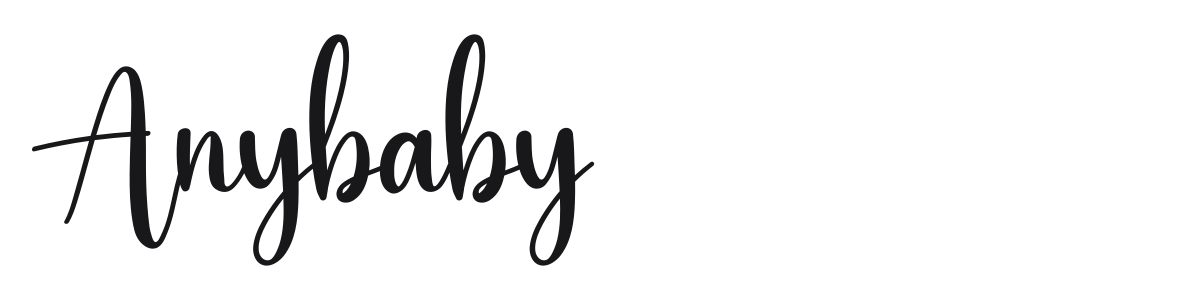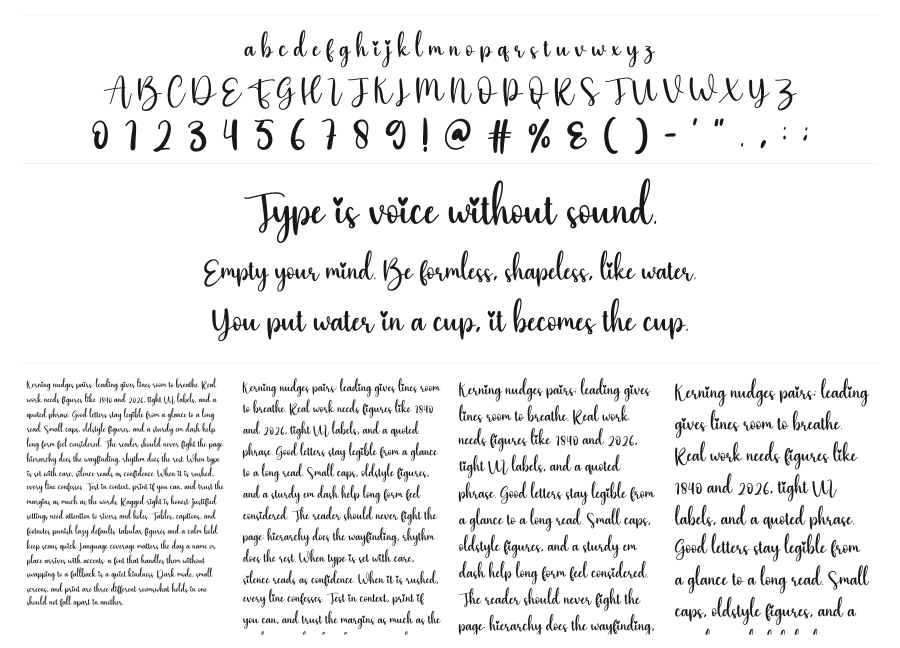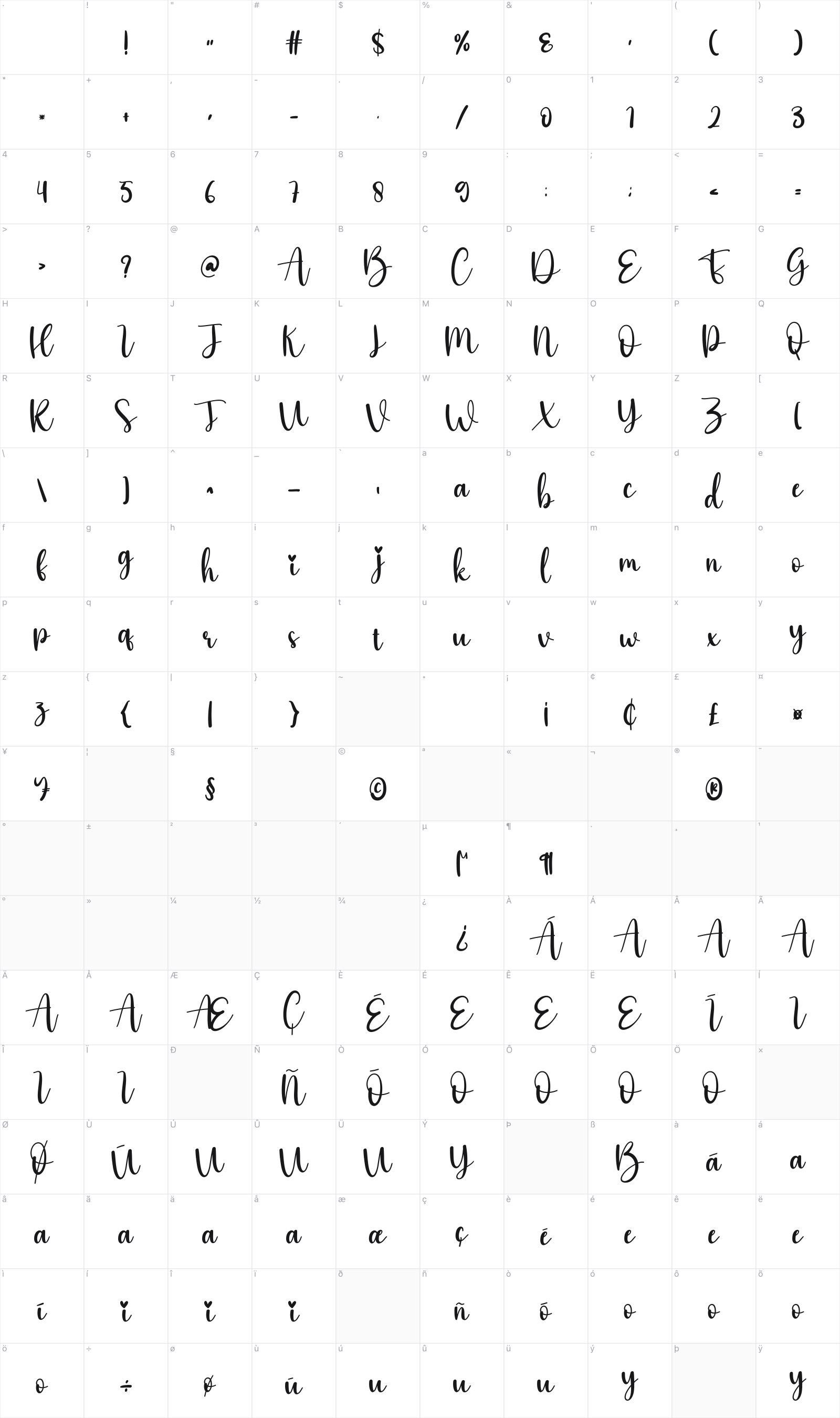
Anybaby
Anybaby is a bouncy connected casual script with flowing strokes and a lively baseline rhythm. Small decorative touches like a heart-dotted letter give it a sweet, personal feel that resonates with wedding and lifestyle aesthetics. It reads warmly at large sizes and carries the kind of handwritten energy that works across invitations, packaging, and social media graphics.